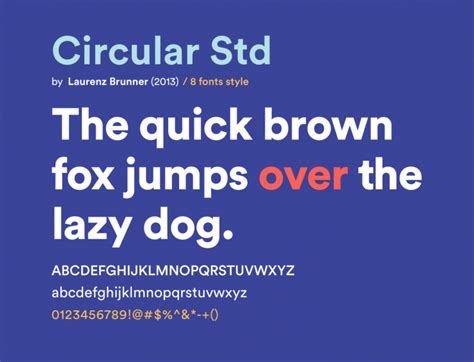
It is laurenz brunner’s second official release after the critically acclaimed, immensely popular ll. It is suitable for headlines and printed collateral,. Web circular std book font download is available free from 8font.com. Please note that circular std sans serif font is for personal use. Web circular std offers full support for the latin alphabet while also supporting many other alphabets. Web the font is available in all formats (circular std woff2, circular std woff, circular std ttf, circular std eot) and applicable to the website, photoshop and any os. Its rounded corners make it perfect for a soft feel and work great at any size. Web varela round is based on the well known font varela. This font is free for personal use. License lawful use of the fonts or the data contained within the font files.
Web circular is a trademark of lineto copyright generated in 2013 by fontlab studio. Circular std book font is a popular, sans serif type font that can be used on any device such as. Web flow is a font family built for abstracting content and code for design mockups, wireframing, presentations, and websites. Get circular → circular specimen similar fonts sailec tt commons closest. It is suitable for headlines and printed collateral,. Web circular is available in four weights—book, medium, bold and black—each with matching italics. Web ll circular is a geometric sans serif font family with currently sixteen weights. A sans serif typeface with 7 styles, available from adobe fonts for sync and web use. Web circular std offers full support for the latin alphabet while also supporting many other alphabets. Web circular std bold font details. Web circular std font.